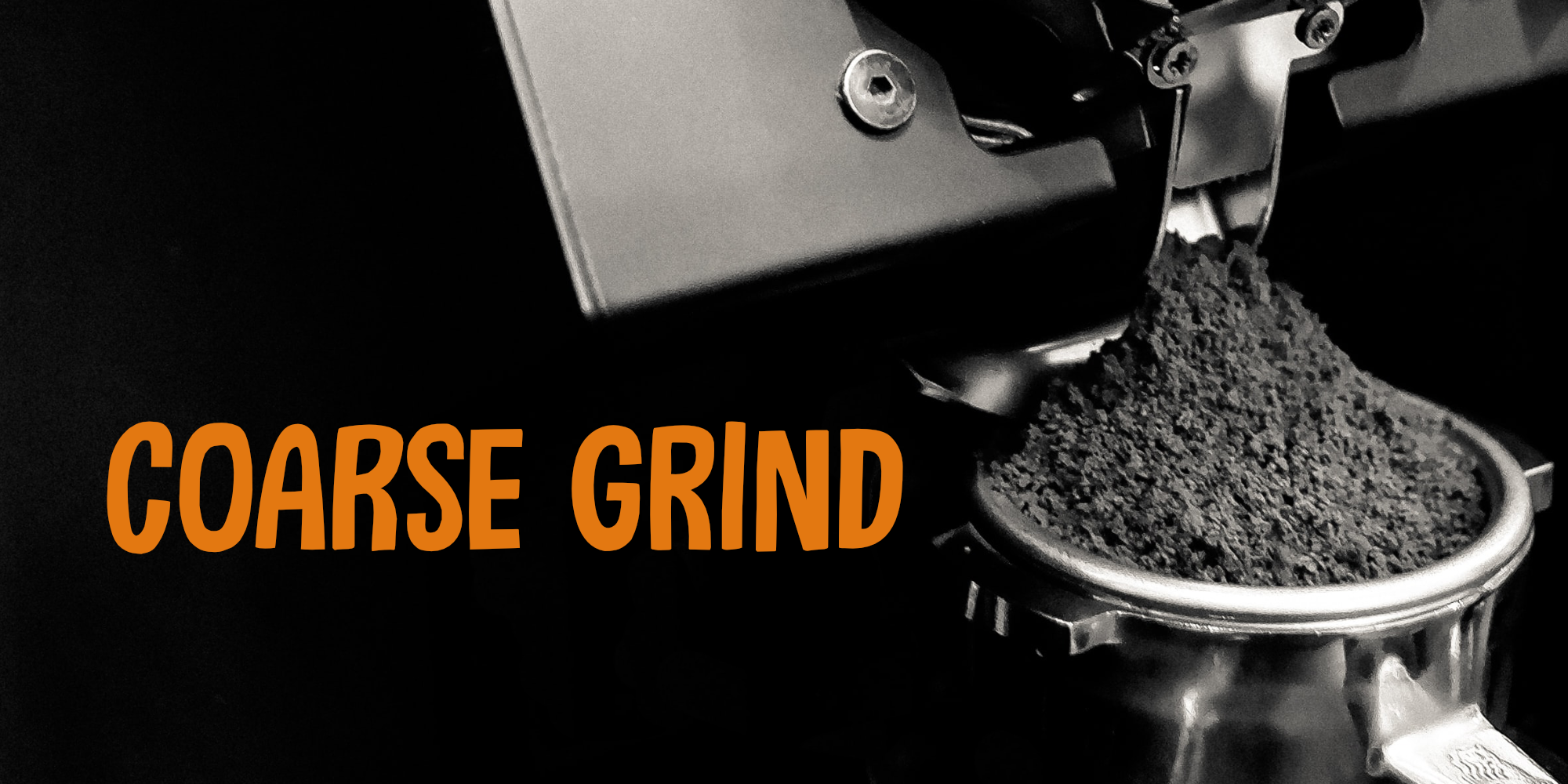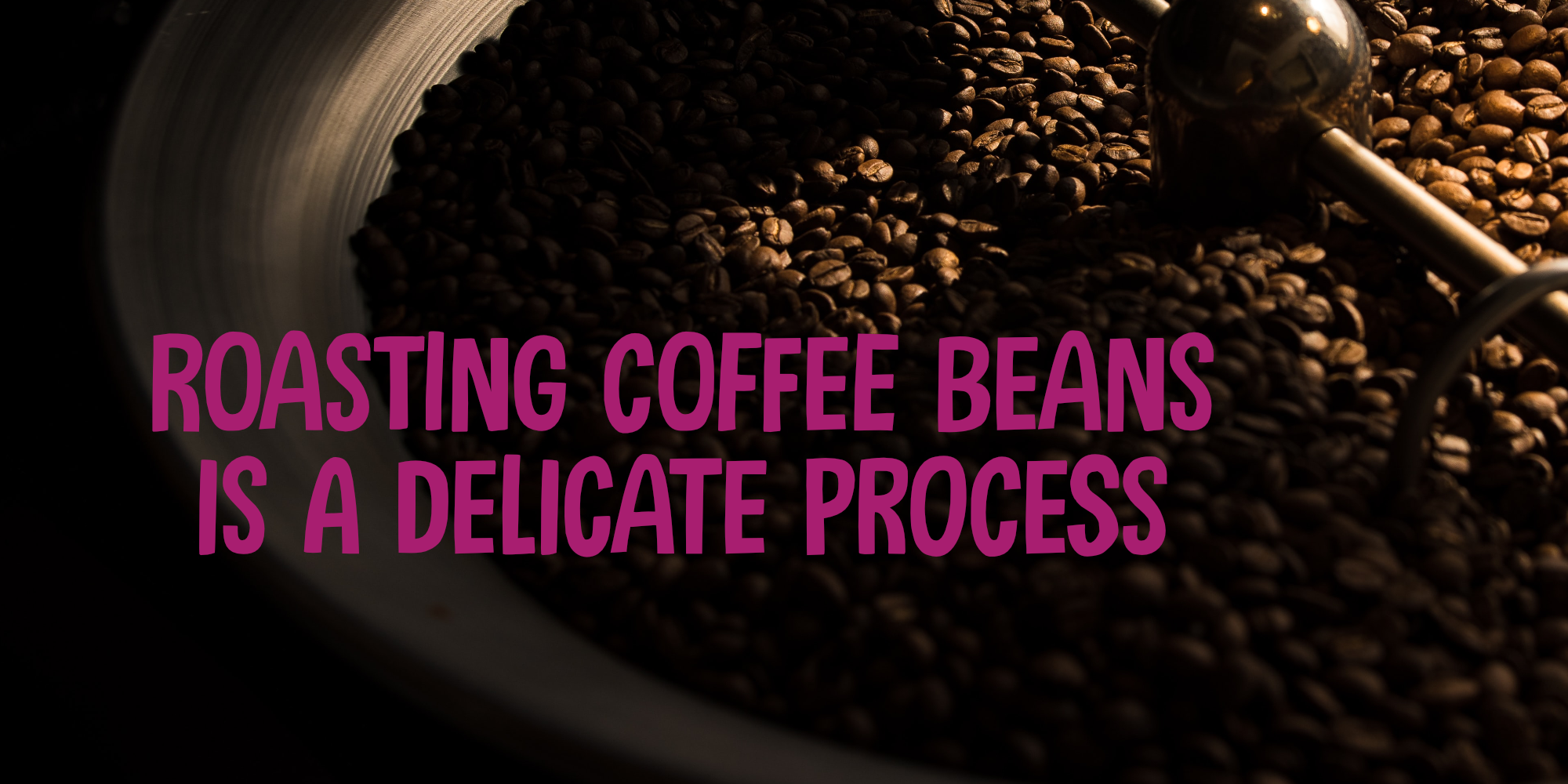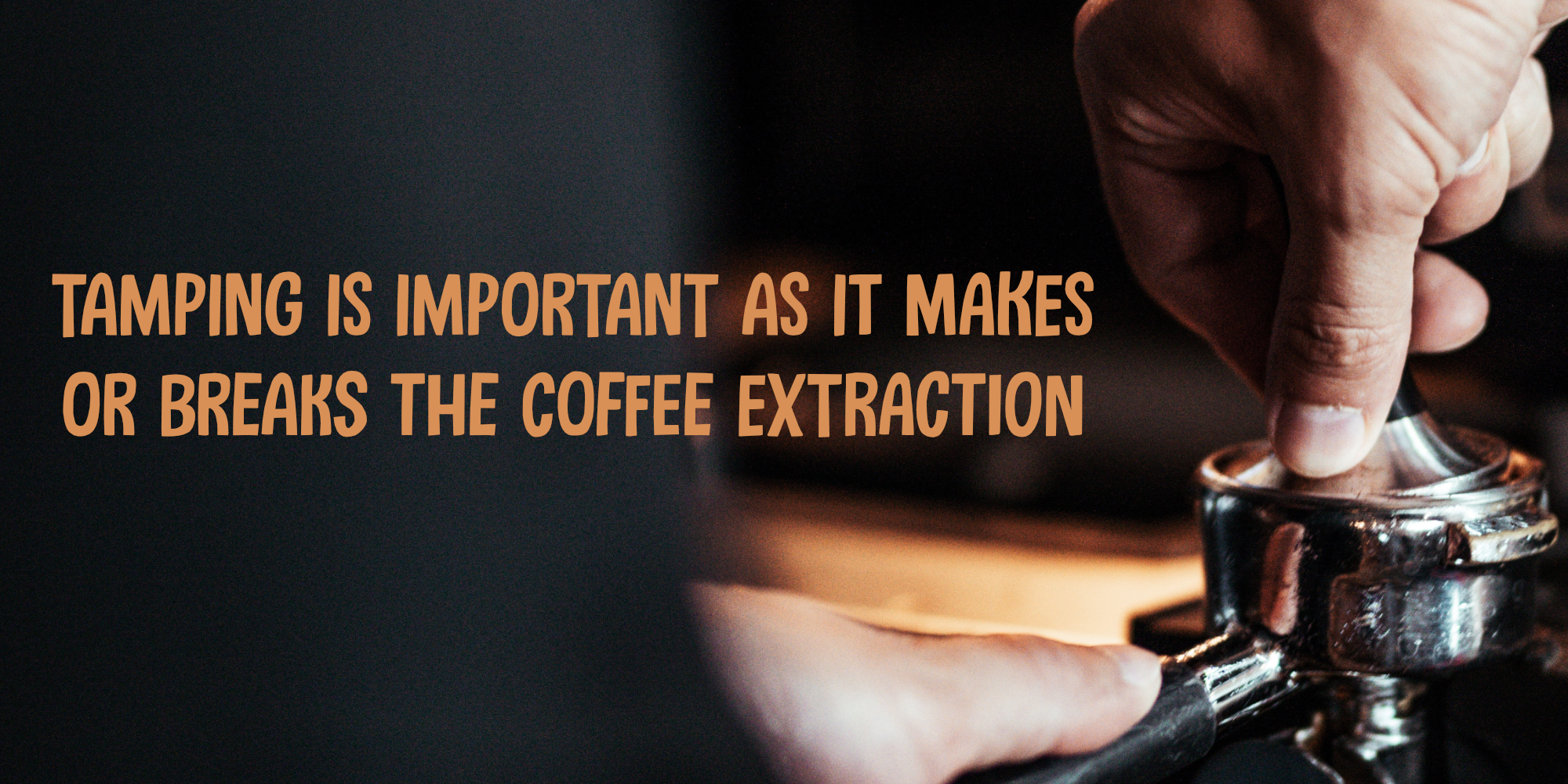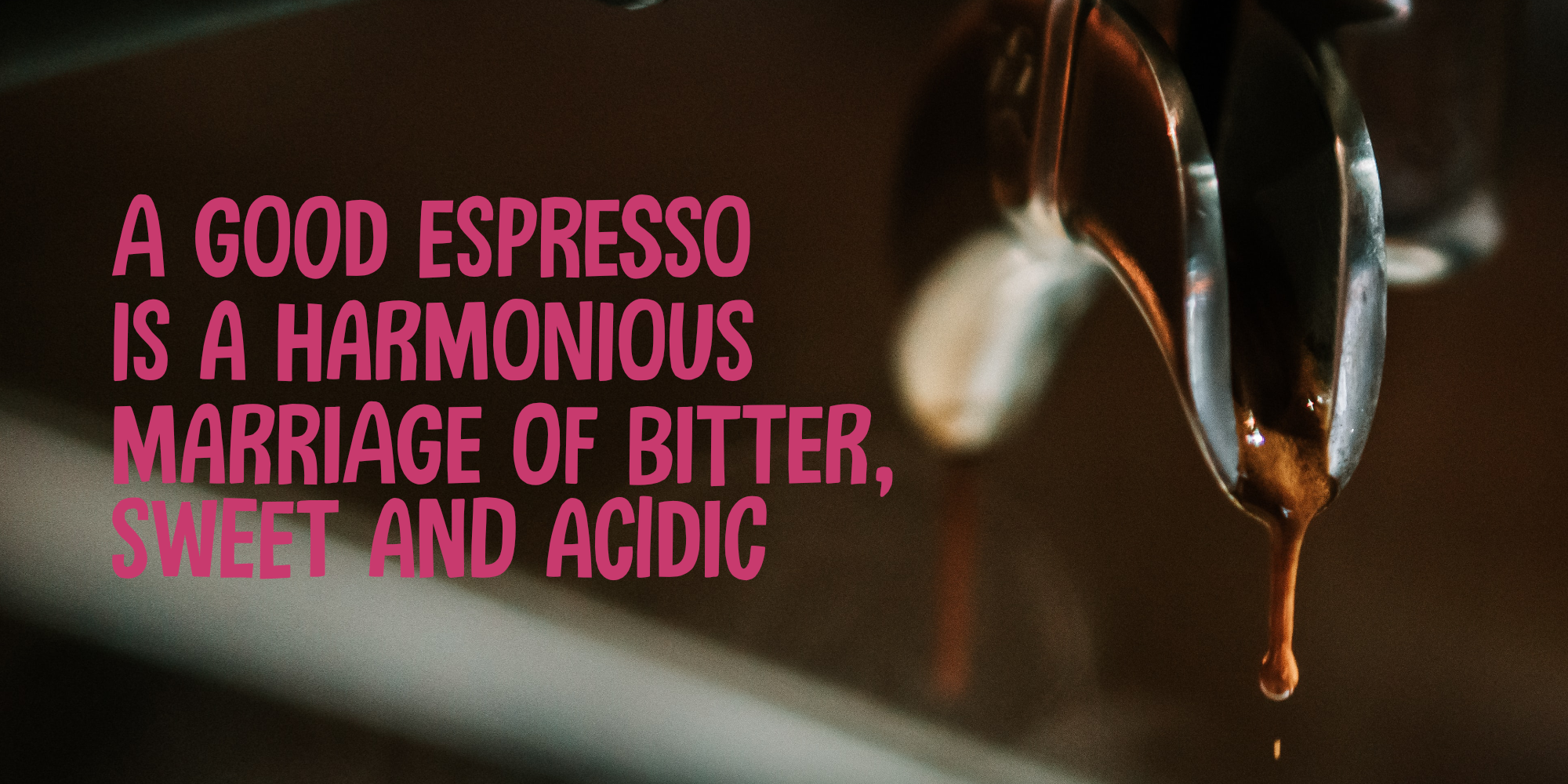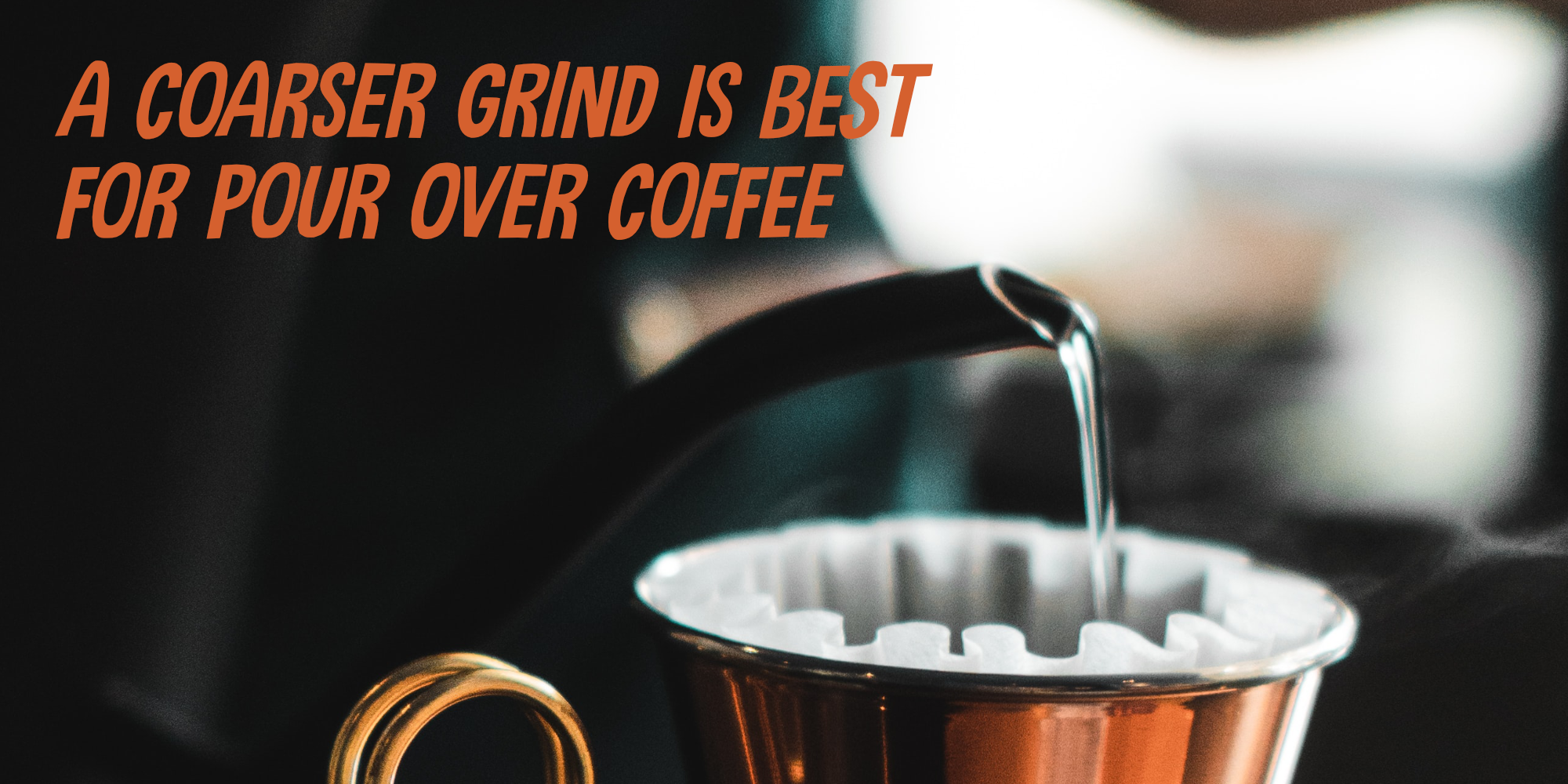
Coarse Grind (2 fonts)
Anyways, this is what I thought of when I worked on Coarse Grind. Coarse Grind is a well balanced all caps display font. It comes with extensive language support and a set of alternates for the lower case letters.